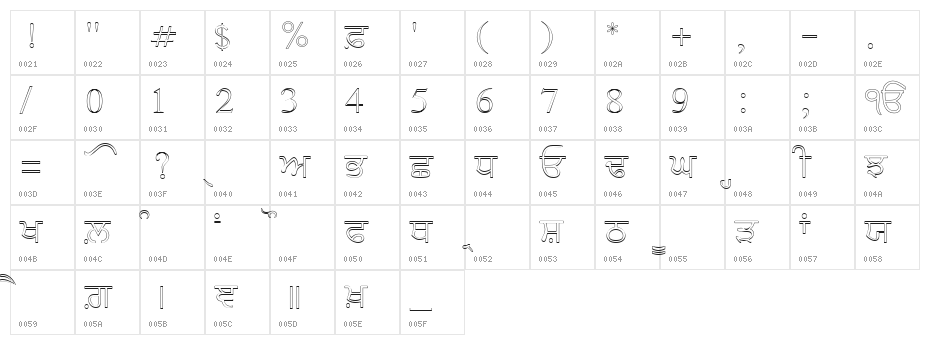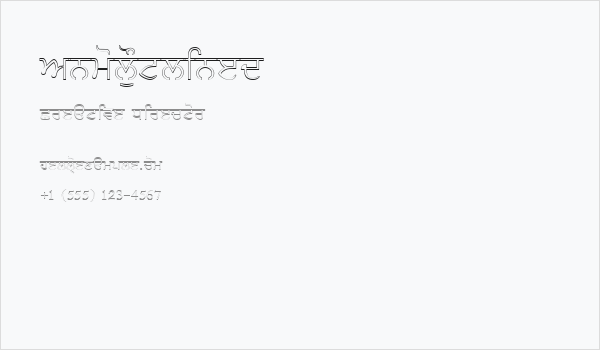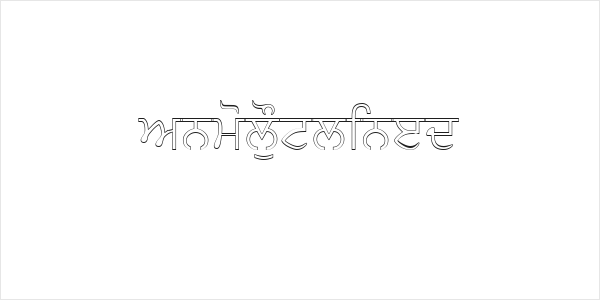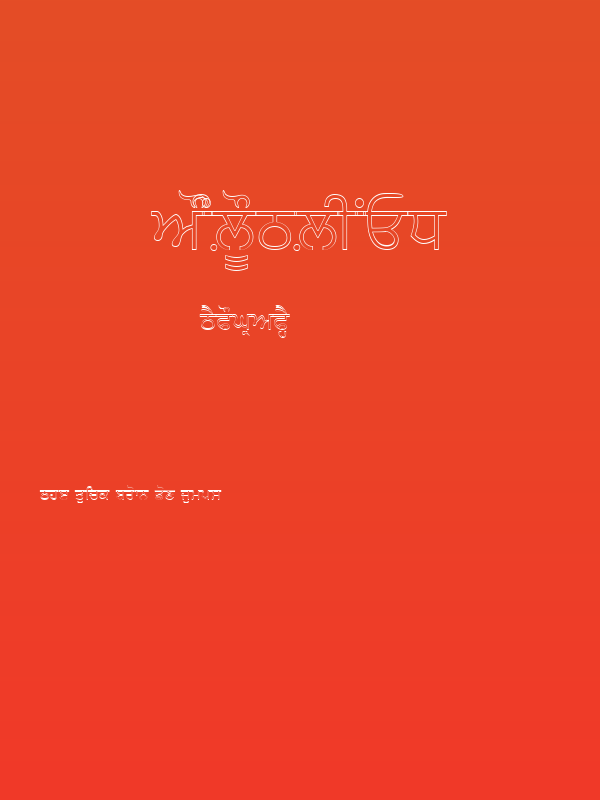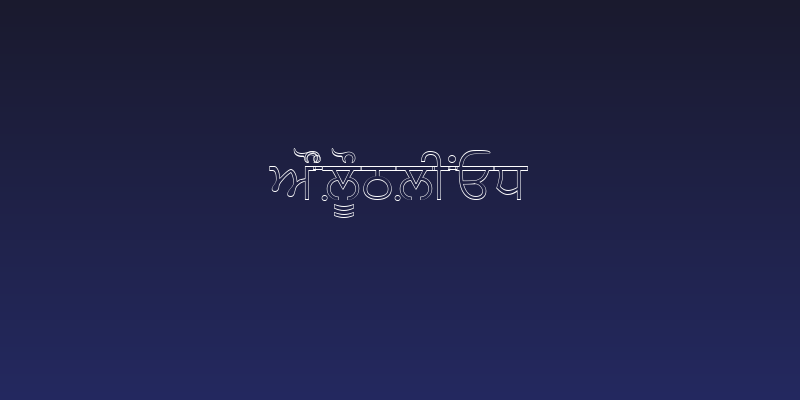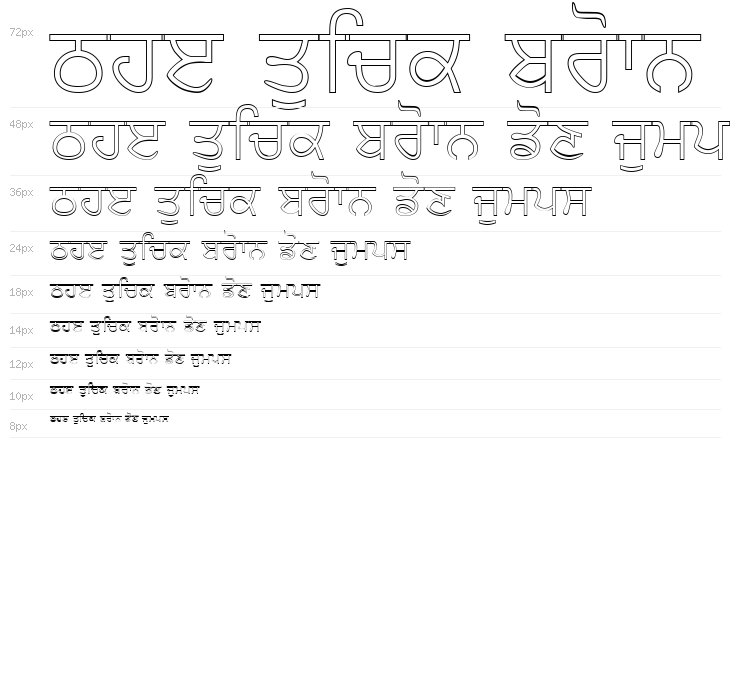
AnmolOutlined Font
AnmolOutlined Description
This font features an outlined style with a modern and clean appearance. The characters are crafted with a consistent stroke width, giving it a uniform look. The design is geometric, with rounded edges and smooth curves, making it visually appealing and easy to read. The numerals and special characters maintain the same outlined style, ensuring a cohesive appearance across all elements. This font is suitable for projects that require a contemporary and stylish touch, offering both clarity and aesthetic appeal.
| Proposed Projects | Ideal for branding, posters, headlines, and digital media where a modern and stylish look is desired. |